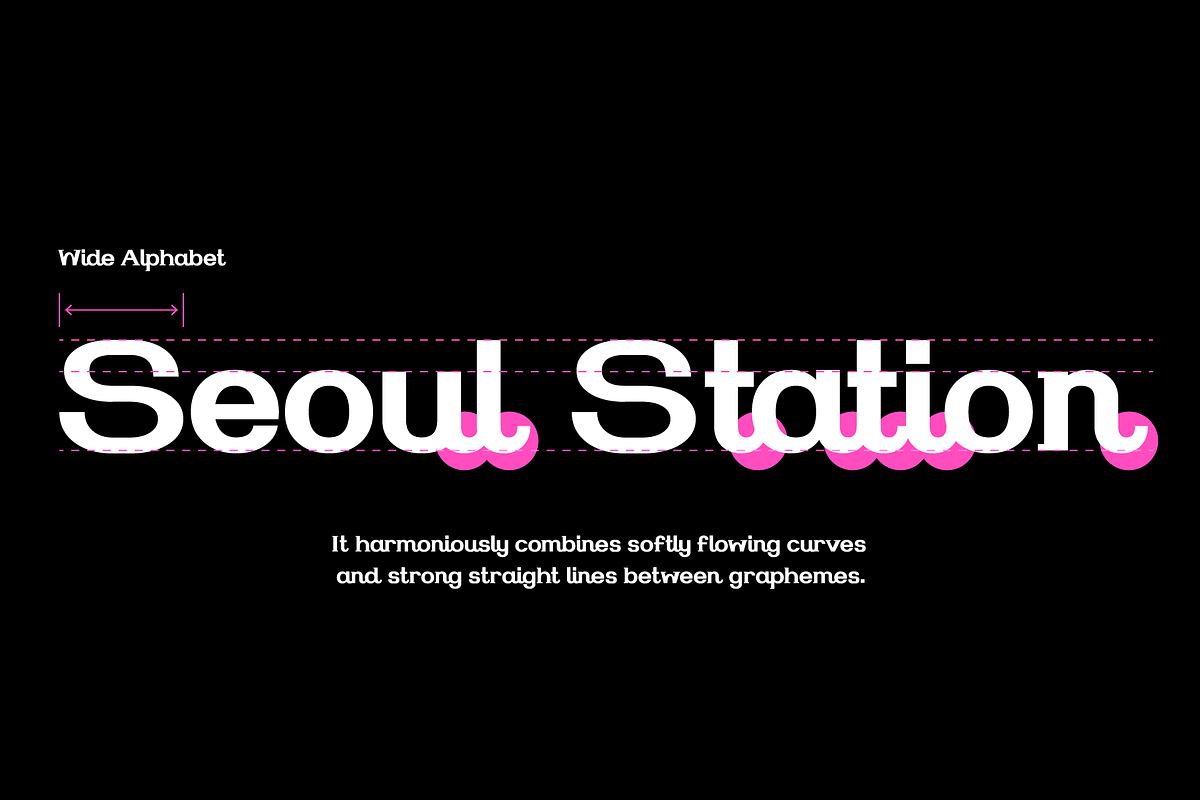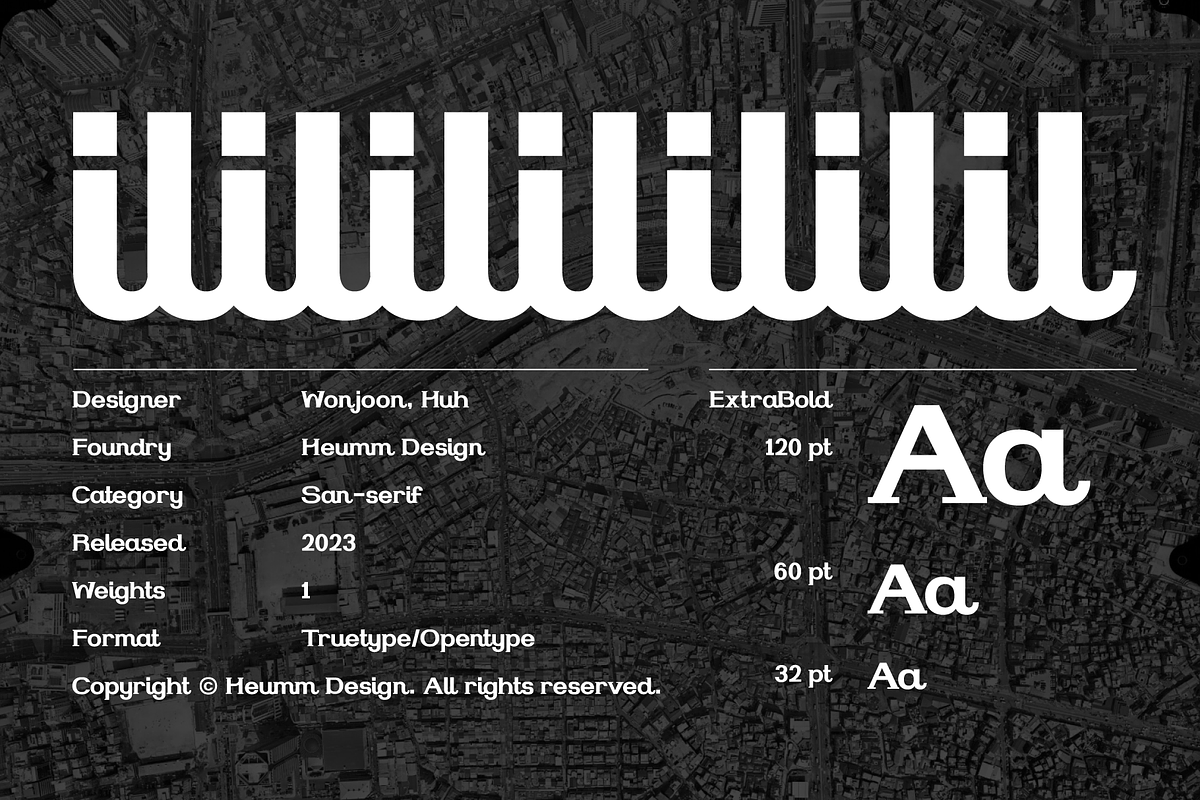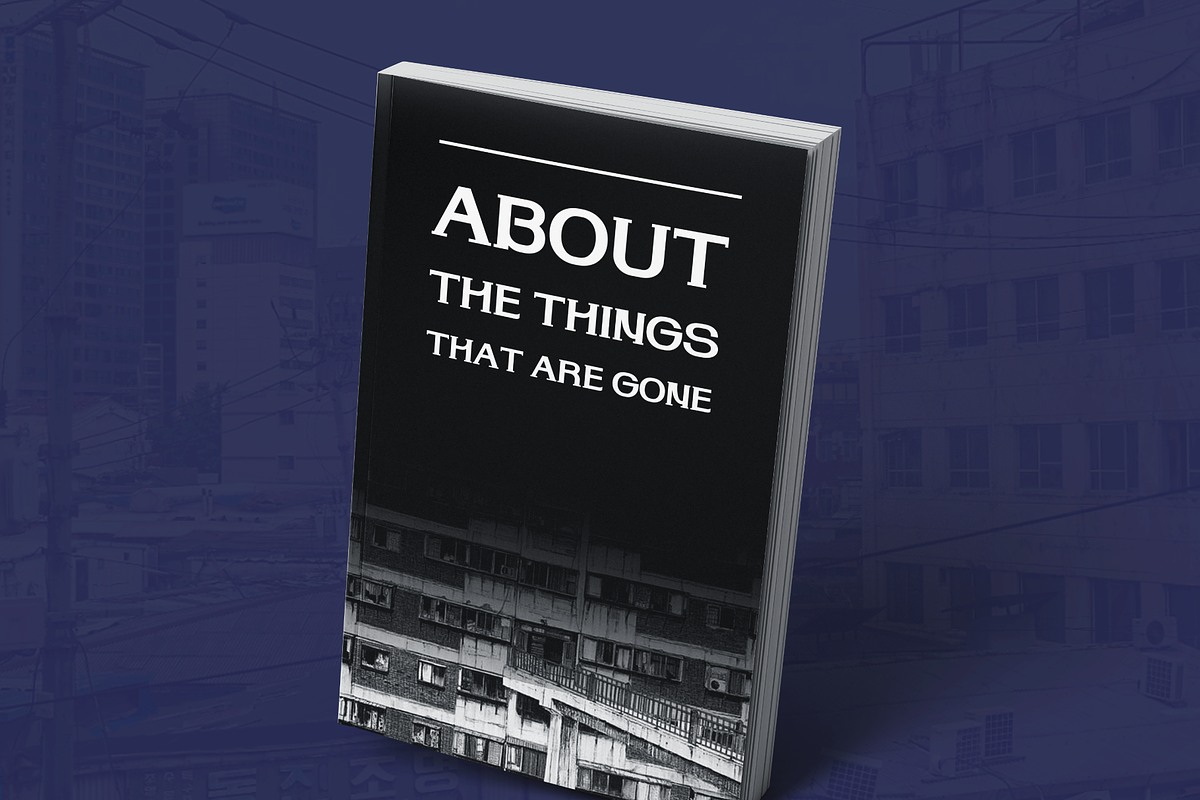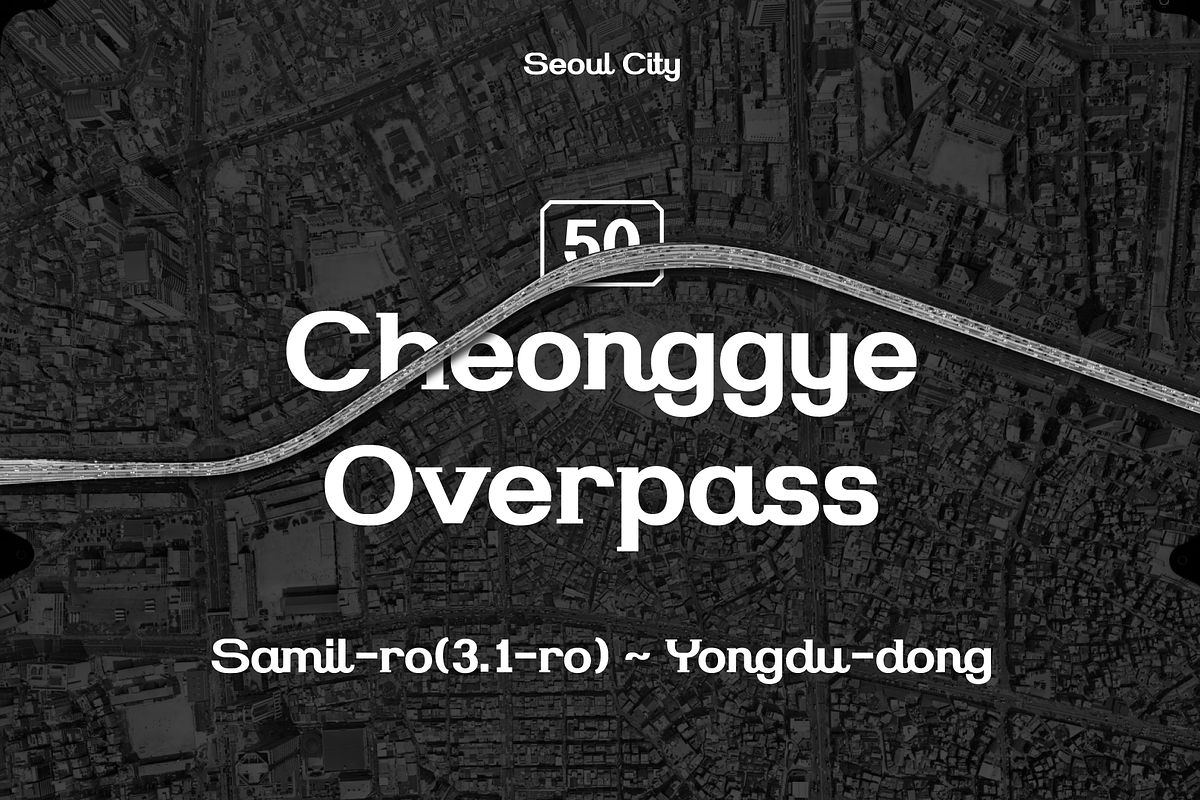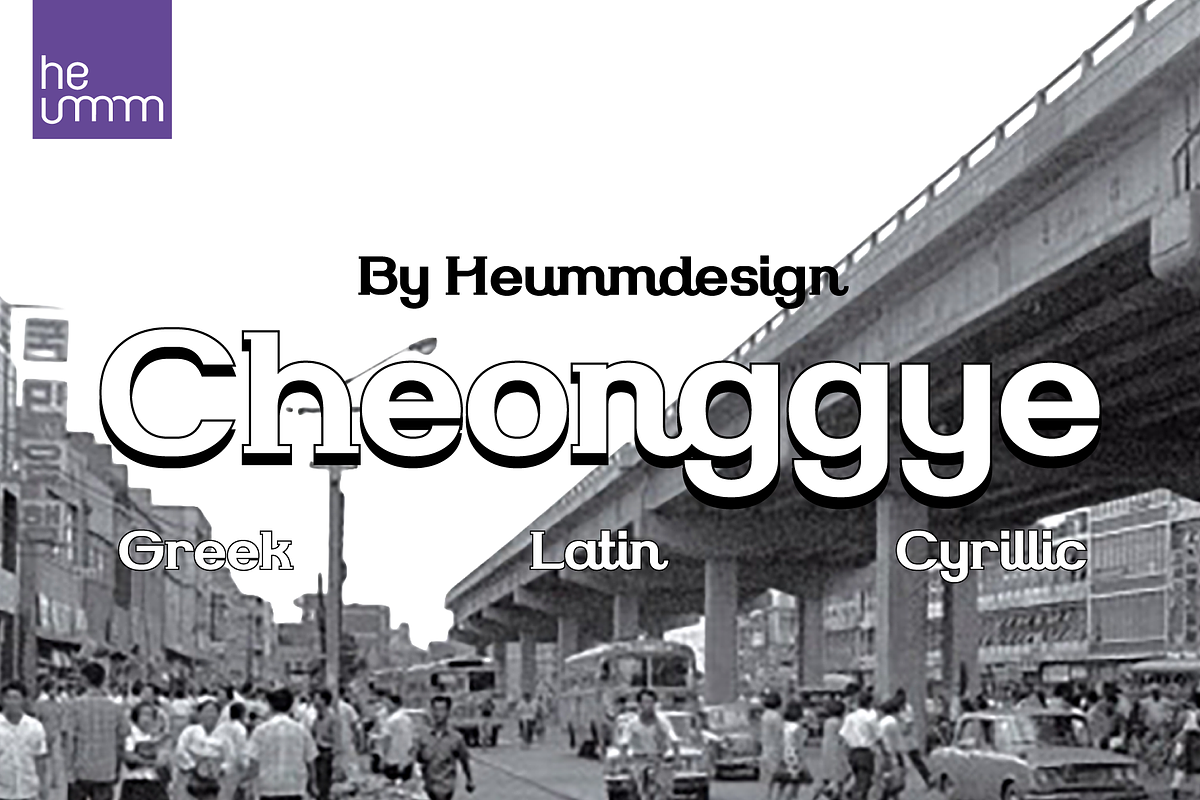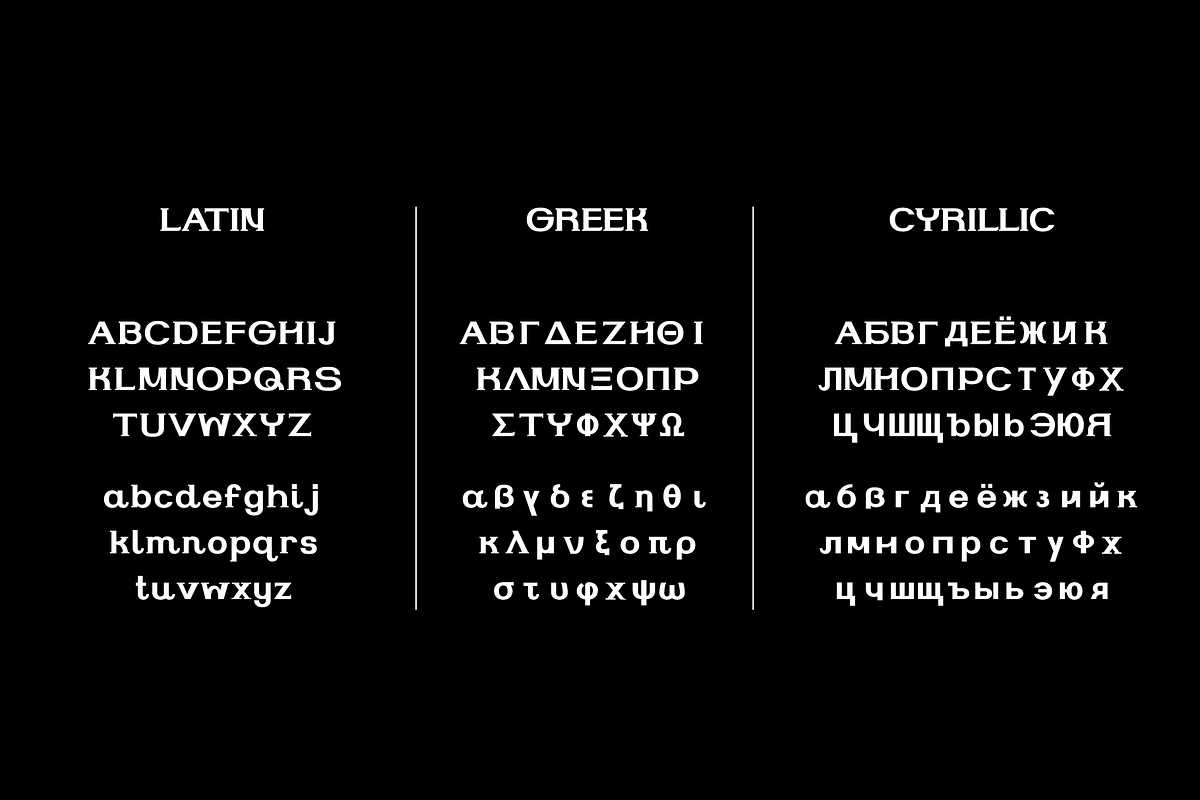
HU Cheonggye is a typeface for titles with thick strokes and wide flats, mainly produced with a retro feel. In order to bring out the characteristics of the retro typeface, a difference in thickness between horizontal and vertical strokes was applied, and obtuse right-angled serifs were applied.
There is 1 weight of HU Cheonggye : Bold